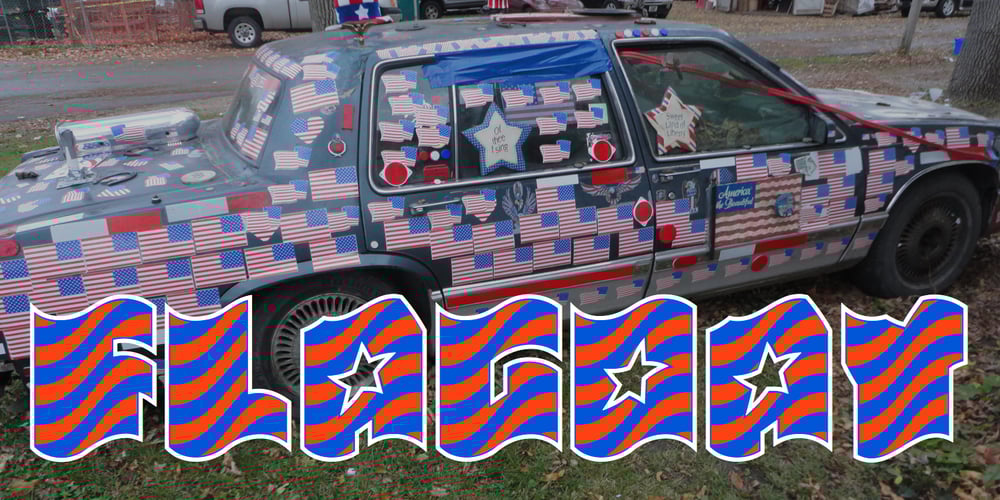
FlagDay Font Family was designed by Robert Schenk and published by Ingrimayne Type. FlagDay contains 8 styles and family package options. These four variations on letters designed as flags are almost unreadable, but may be of some use as a patriotic display font. The four are all transformations of fonts from the FourJuly group. The solid and outline styles can be layered with the main fonts to easily create multiple-colored letters.